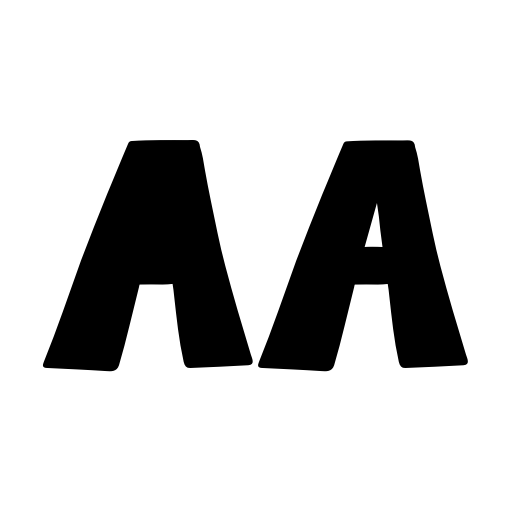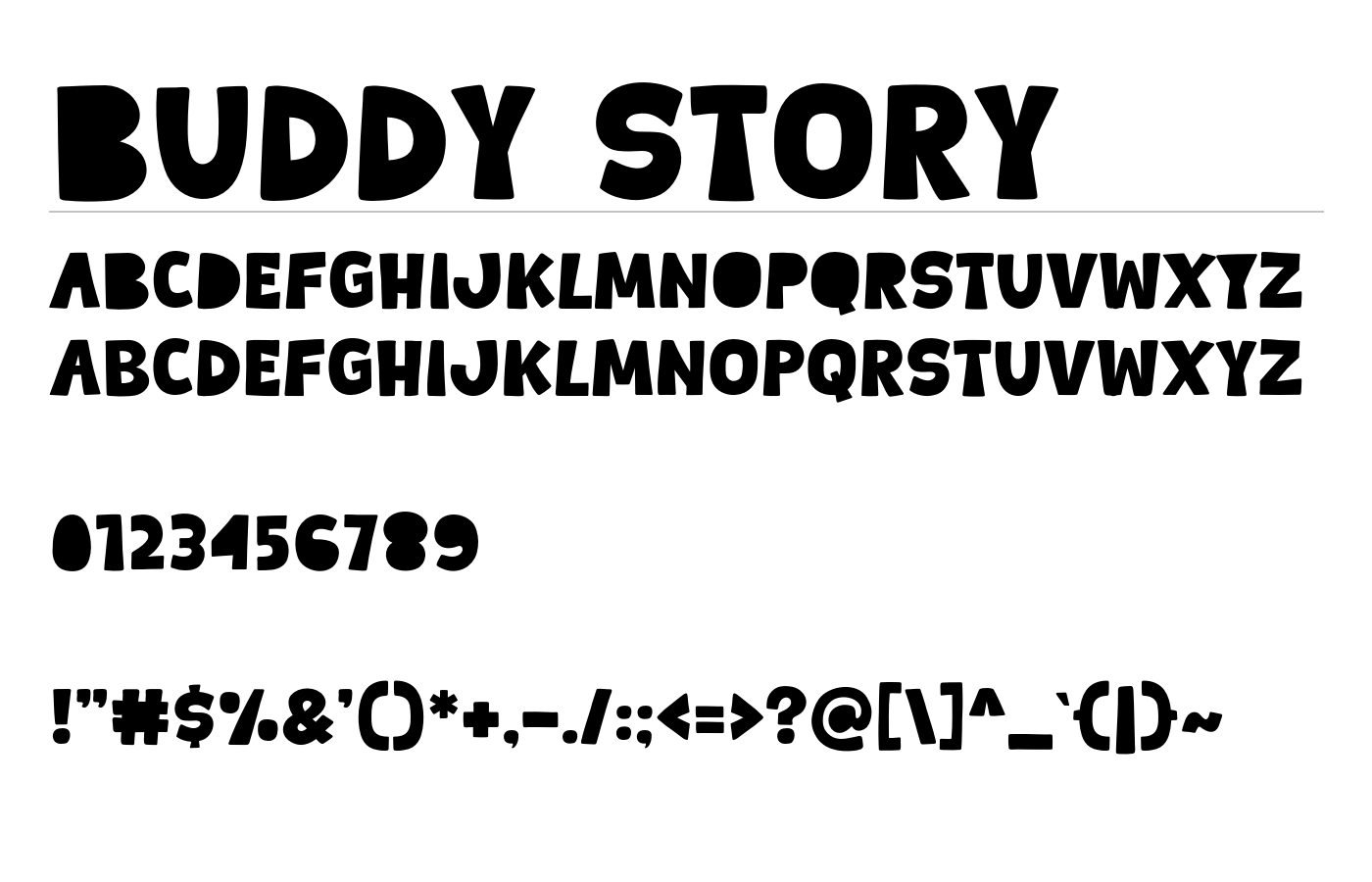
Buddy Story is a playful and bold sans serif font with chunky, rounded letterforms that create a friendly and approachable vibe. Its uneven, hand-crafted look and tight spacing bring warmth and personality, making it ideal for fun branding, children's materials, and casual headlines where a lively and informal tone is desired.
Buddy Story Font
About Buddy Story Font
| Font family | Buddy Story Font |
| Designer | Suzuran |